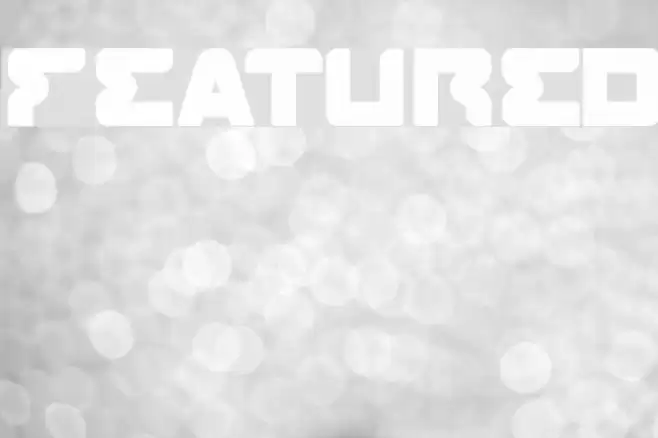
FEATURED Font
FEATURED Description
This font features a bold, geometric design with a futuristic and industrial feel. The characters are constructed with thick, block-like shapes, giving them a strong and commanding presence. The angular cuts and sharp edges contribute to a modern aesthetic, while the uniformity in stroke width maintains a cohesive look. The font's style is reminiscent of digital or sci-fi themes, making it suitable for projects that require a bold and impactful typeface. The uppercase letters are particularly striking, with unique design elements that set them apart from traditional fonts.
A bold, geometric font with a futuristic and industrial design from Uncategorized fonts.